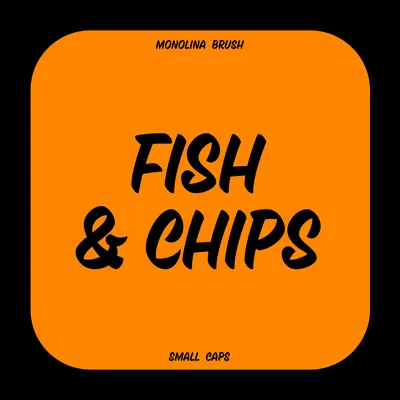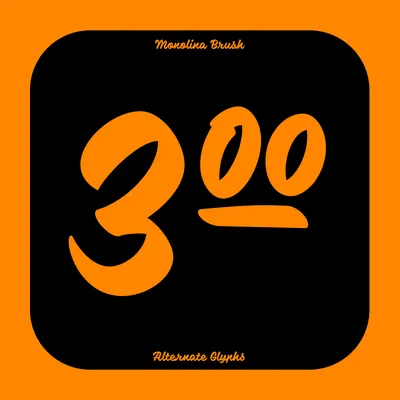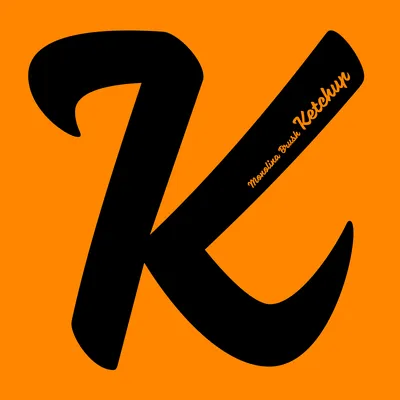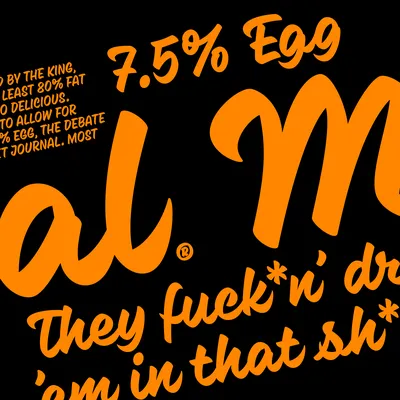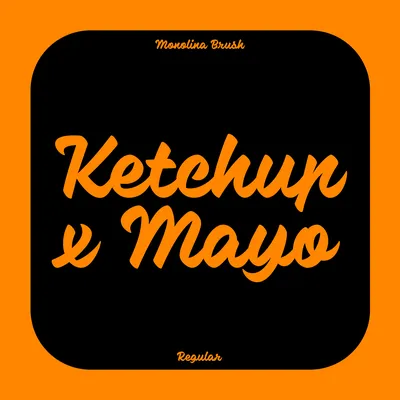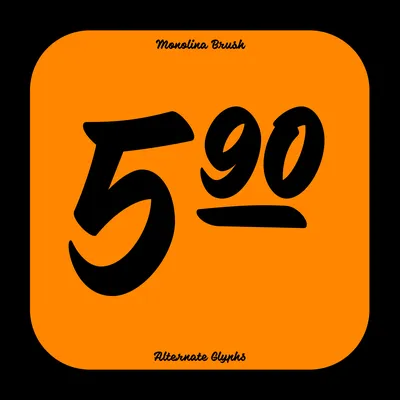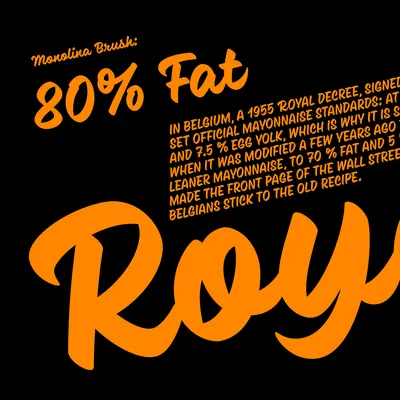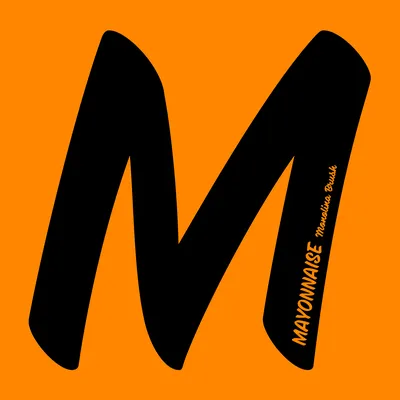
Monolina Brush is an extension of Monolina script typeface. The aim was to further develop the linear skeleton's potential by applying different writing tool strokes. The Monolina Brush got a significant facelift. It aims to simulate writing with a brush, whose tip leads to a point at the exit strokes of the curves, as seen in the lowercase and swash shapes of the uppercase. The swashes may be more rigid than the original Monolina, but they must stay! The fictitious character of the wet brush also gives the characters a slight bend in the stems and rounder tops and bottoms. To make the connections and joints between characters work well, I redrew a few shapes and added a few contextual substitution lines. All diacritical marks, punctuation and other symbols, so as are the new small capitals, are updated for impeccable typesetting.
I've tested Monolina Brush a few times on my collection of markers for calligraphy workshops, on murals, and also on my skis until it became a sort of my core script typeface. To give Monolina Brush a new context I'm finally releasing it out and I’m going to create some alternative versions, like dry marker, pointed pen or graphite.
Type design:Petra Dočekalová
Classification:Script, Brush
The Monolina Brush got a significant facelift. It aims to simulate writing with a brush, whose tip leads to a point at the exit strokes of the curves, as seen in the lowercase and swash shapes of the uppercase. The swashes may be more rigid than the original Monolina.
One of the original sketches with brush for Solista Café lettering, 2016
Font in use
A comix book about Czech Olympic gymnast Věra Čáslavská is using custom Monolina Light and Bold. Text Jan Novák, illustration Jaromír99, Publisher Argo, 2020, ISBN: 978-80-257-3342-4